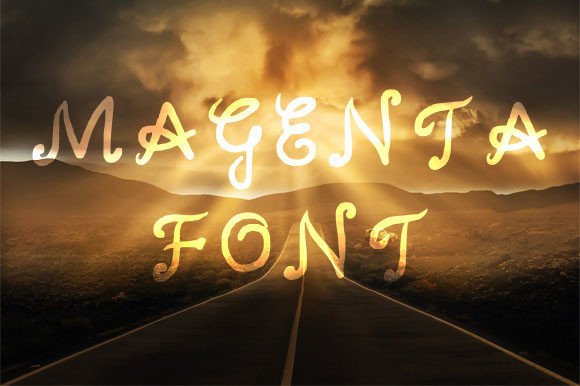
About Magenta Font
**Magenta – Elegant and Sophisticated Script Font**
Magenta is a script font designed to exude elegance and sophistication in your typography projects. Here’s why you should consider using Magenta for your creative endeavors:
1. **Timeless Elegance:** Magenta offers a timeless and classic script style that never goes out of fashion. Its graceful letterforms and flowing connections between characters create an elegant and sophisticated look.
2. **Versatile Usage:** This font can be used for a wide range of design projects, including logos, branding materials, wedding invitations, greeting cards, posters, packaging, product labels, social media graphics, and more. Its versatility makes it suitable for both print and digital applications.
3. **Authentic Appeal:** Magenta’s design aims to capture the authenticity and personal touch of handwritten script. It adds a human element to your text, making it more relatable and engaging to your audience.
4. **Brand Identity:** If you want to establish a brand identity that conveys sophistication and refinement, Magenta can be an excellent choice for your logo and branding materials. Its elegant script style communicates professionalism and luxury.
5. **Wedding Invitations:** Design beautiful and romantic wedding invitations with Magenta. Its graceful script is perfect for setting the tone of a special and memorable event.
6. **Greeting Cards:** Create heartfelt greeting cards for various occasions, from birthdays to anniversaries, using Magenta. Its elegant script adds a touch of sincerity and charm to your messages.
7. **Posters and Prints:** Whether you’re designing posters, art prints, or inspirational quotes, Magenta’s elegant script will make your text visually appealing and captivating.
8. **Product Packaging:** Elevate the design of your product packaging with Magenta. Its sophisticated script can enhance the perceived value of your products and make them stand out on the shelves.
9. **Social Media Graphics:** Craft eye-catching social media posts, quotes, and promotional graphics that capture attention and convey a sense of elegance.
10. **Book Covers:** Use Magenta on book covers to create a sophisticated and inviting look for your novels, journals, or self-help books.
11. **Luxury Brands:** For luxury and high-end brands, Magenta can help convey exclusivity and refinement, making it an excellent choice for product labels, advertisements, and promotional materials.
12. **Website Headings:** Use Magenta for website headings and titles to add a touch of sophistication to your web design.
13. **Invitations:** Whether it’s for formal events or intimate gatherings, Magenta’s elegant script is perfect for designing invitations that leave a lasting impression.
14. **Printed Materials:** Magenta is suitable for a wide range of printed materials, including brochures, catalogs, flyers, and more, where a touch of sophistication is desired.
15. **Promotional Materials:** From banners to flyers and business cards, Magenta can help create promotional materials that resonate with a sophisticated audience.
Magenta is the perfect choice when you want your text to convey elegance and sophistication. Its versatile application, authentic appeal, and timeless style make it a valuable asset in creating visually appealing and engaging designs.